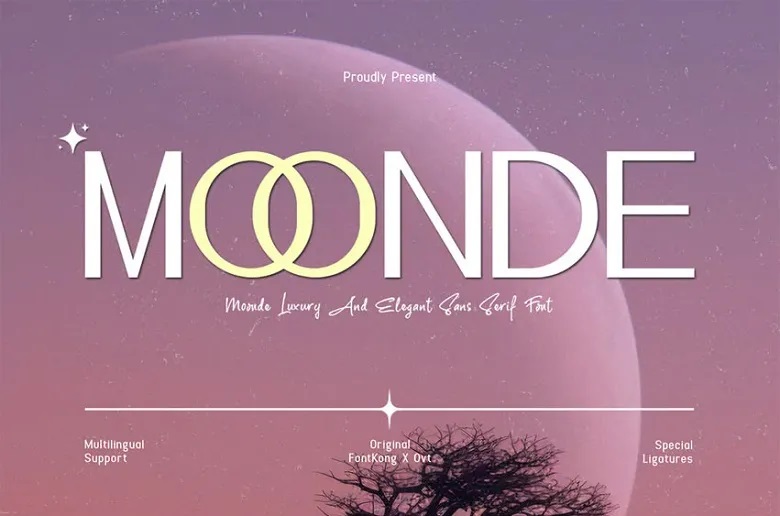
Moonde Font is one of those minimalist elegant sans serif fonts which convey class and style at first glance. This typeface’s clean lines, harmonious scaling, and uncluttered design makes it ideal for luxury and modern business branding, packaging, fashion magazines, weddings, letterheads, symbol and icon, etc.
Moonde makes your designs look classic while making them look contemporary and exquisite. Designed to the letter, Moonde neither tries too hard nor lays on the luxury. Its typeface is almost sans-serif and the curves are small enough to make letters clear but dissimilar enough to make Omega stand out.
This font is also perfect for designing fashionable and luxurious product, as well as for corporate identity logo and branding. Luxurious and distinguished – that is how the fonts of the Moonde type will make your designs look and feel. Ideal for online and offline purposes, this typeface adds refinement and the feeling of the future to any improvements.
Moonde Sans Serif Font